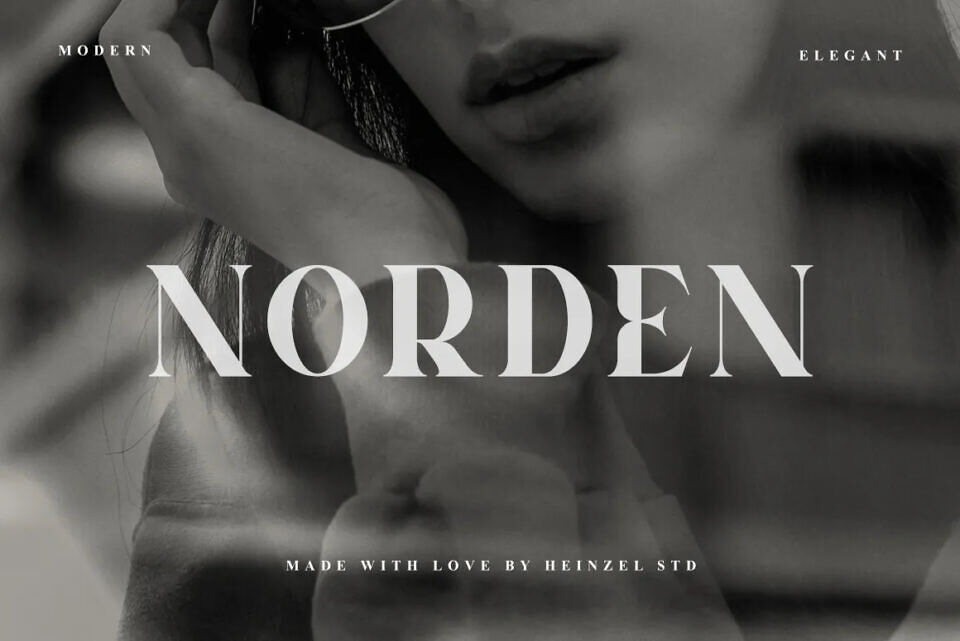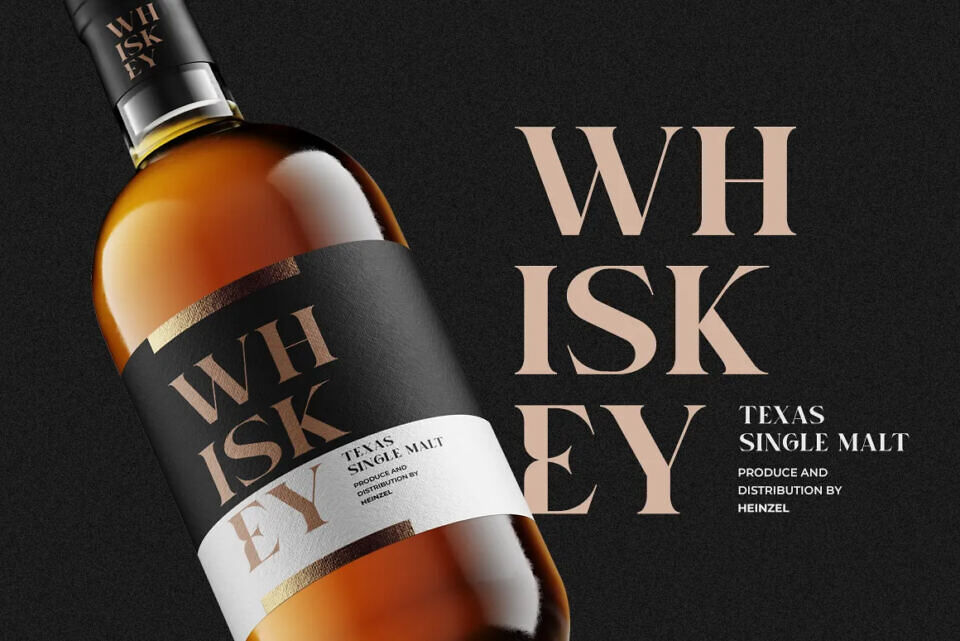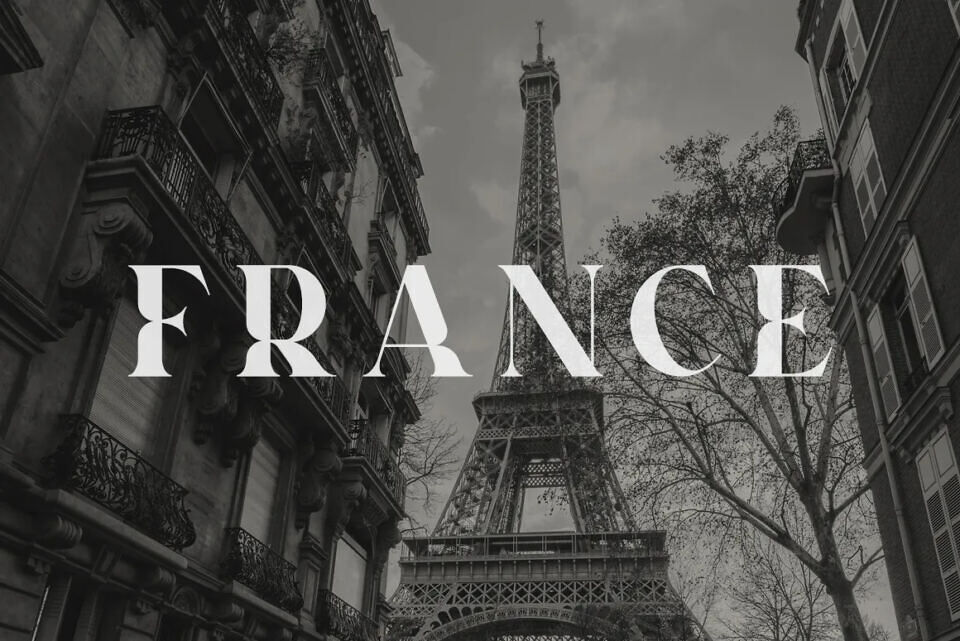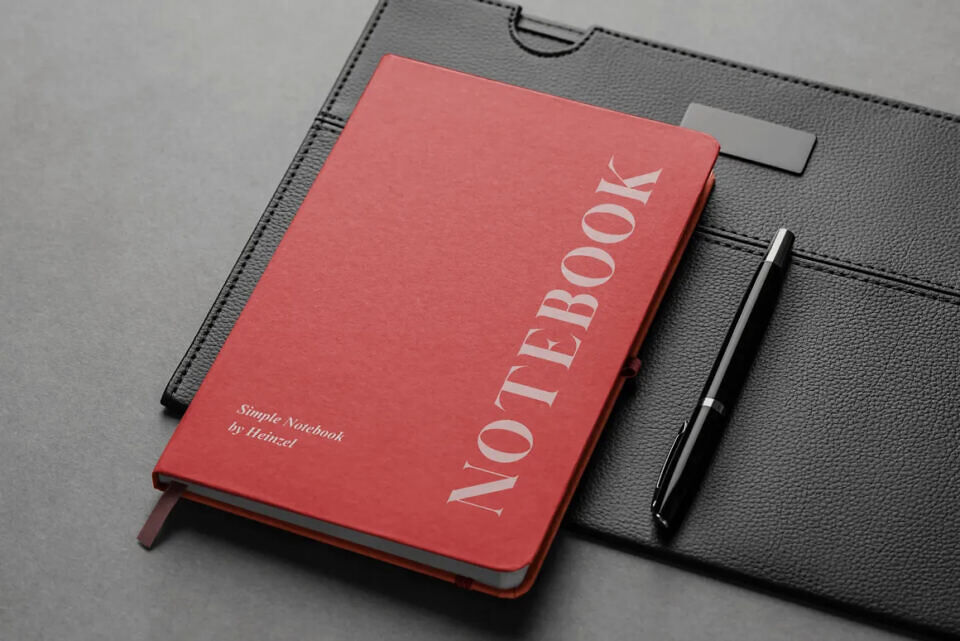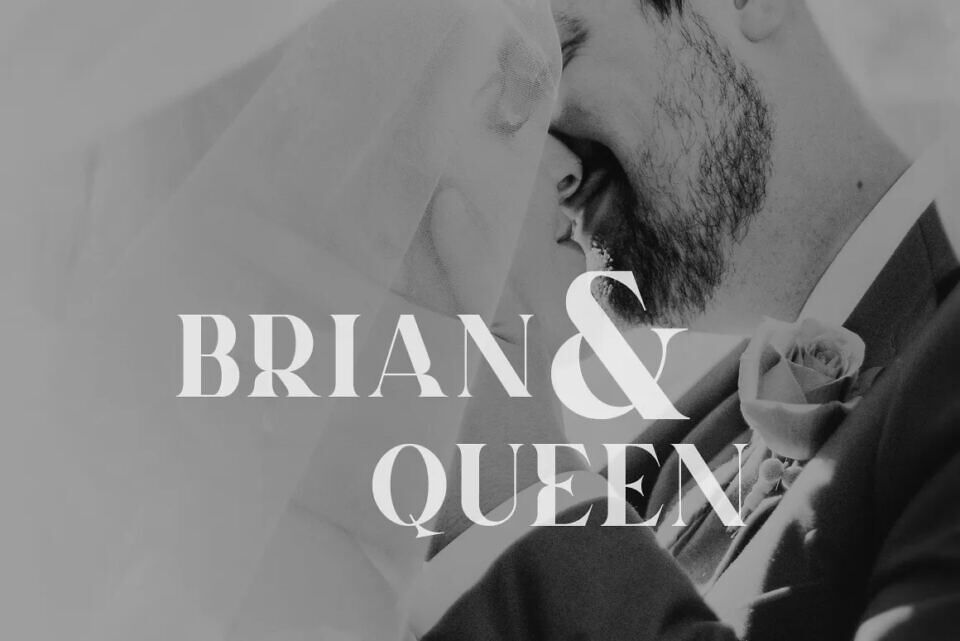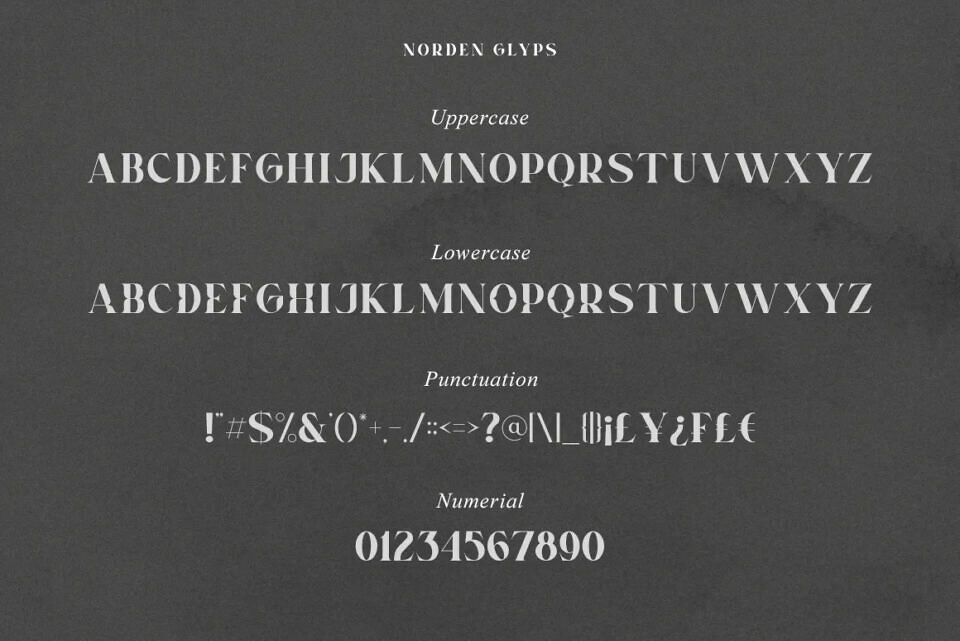
Norden Font
Norden is an elegant and modern all caps serif font. Fall for its ravishing style and use it to create gorgeous logos, headline, title, branding, wedding invitations, beautiful stationary art, eye-catching social media posts, and much more!
Designed by: Heinzel Studio